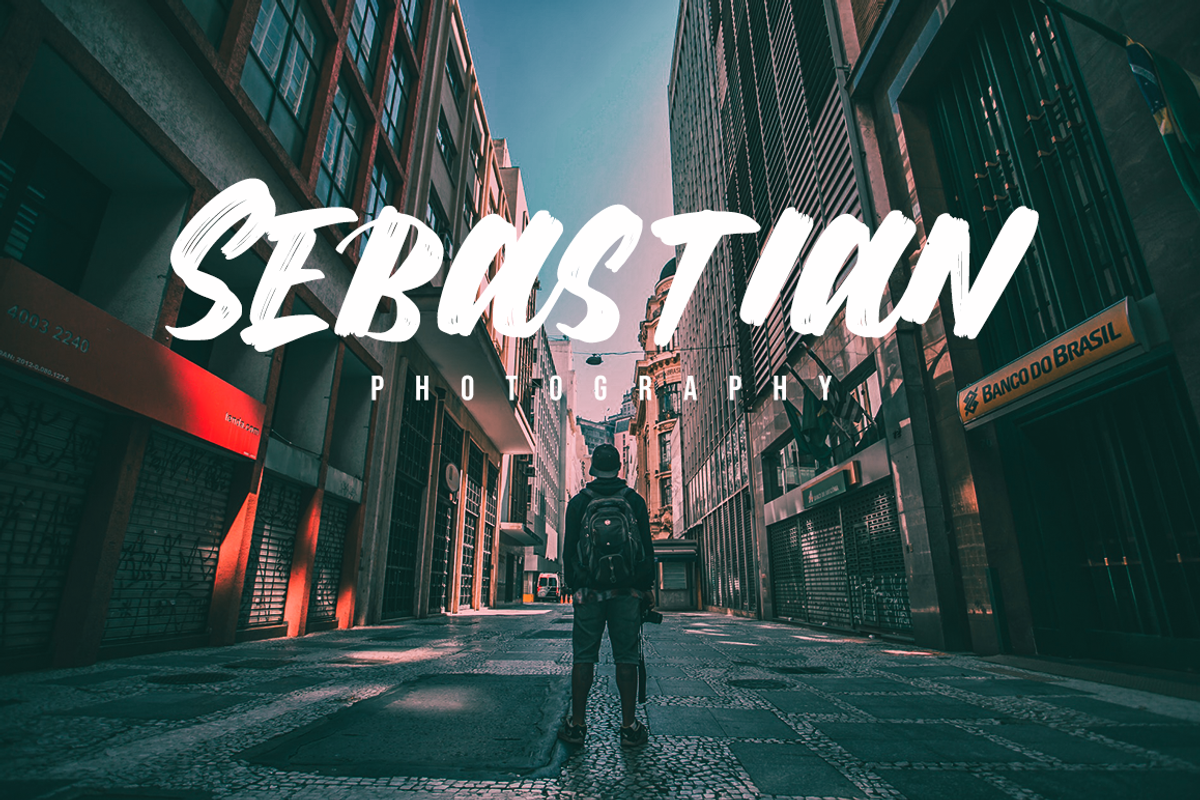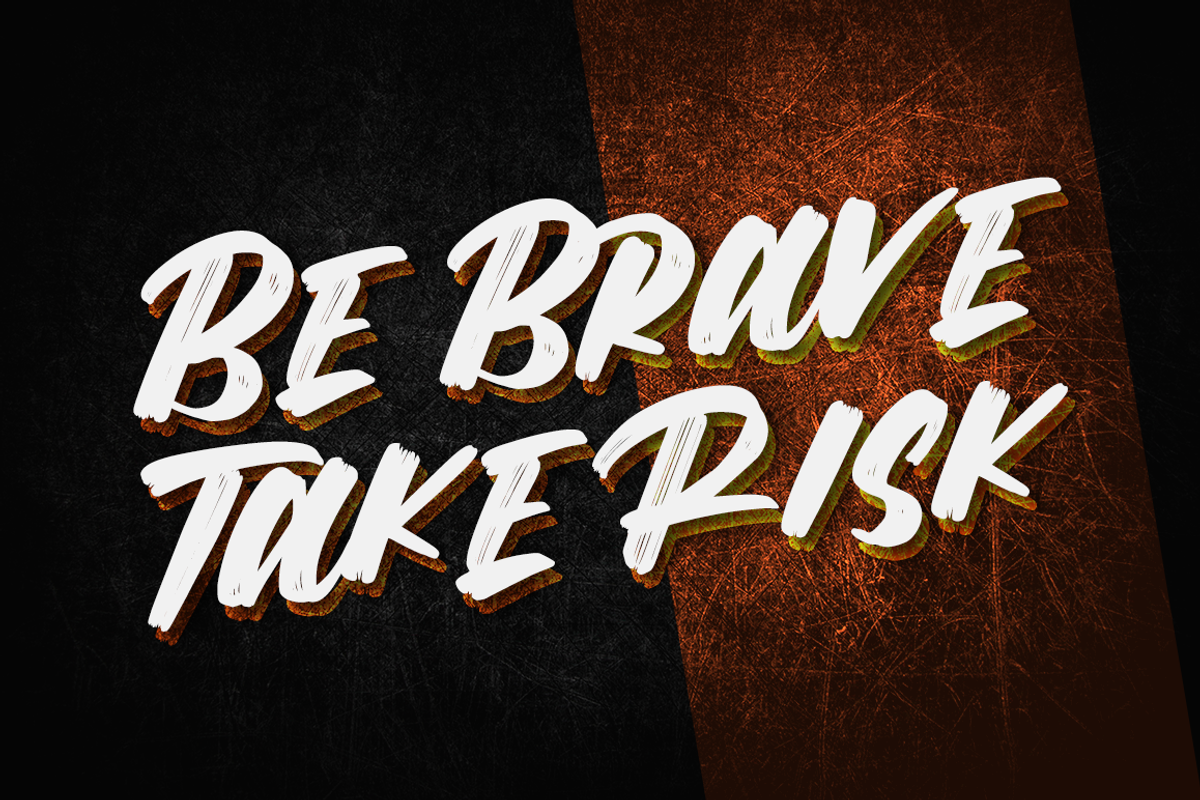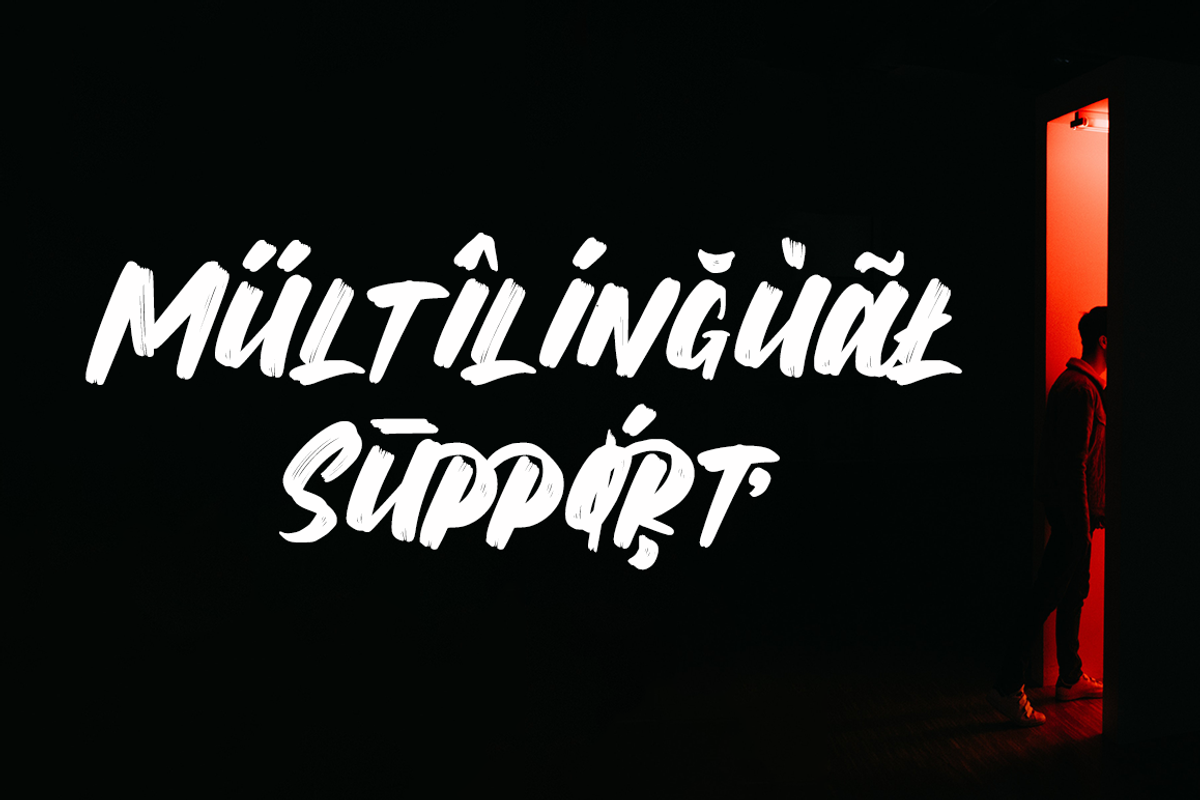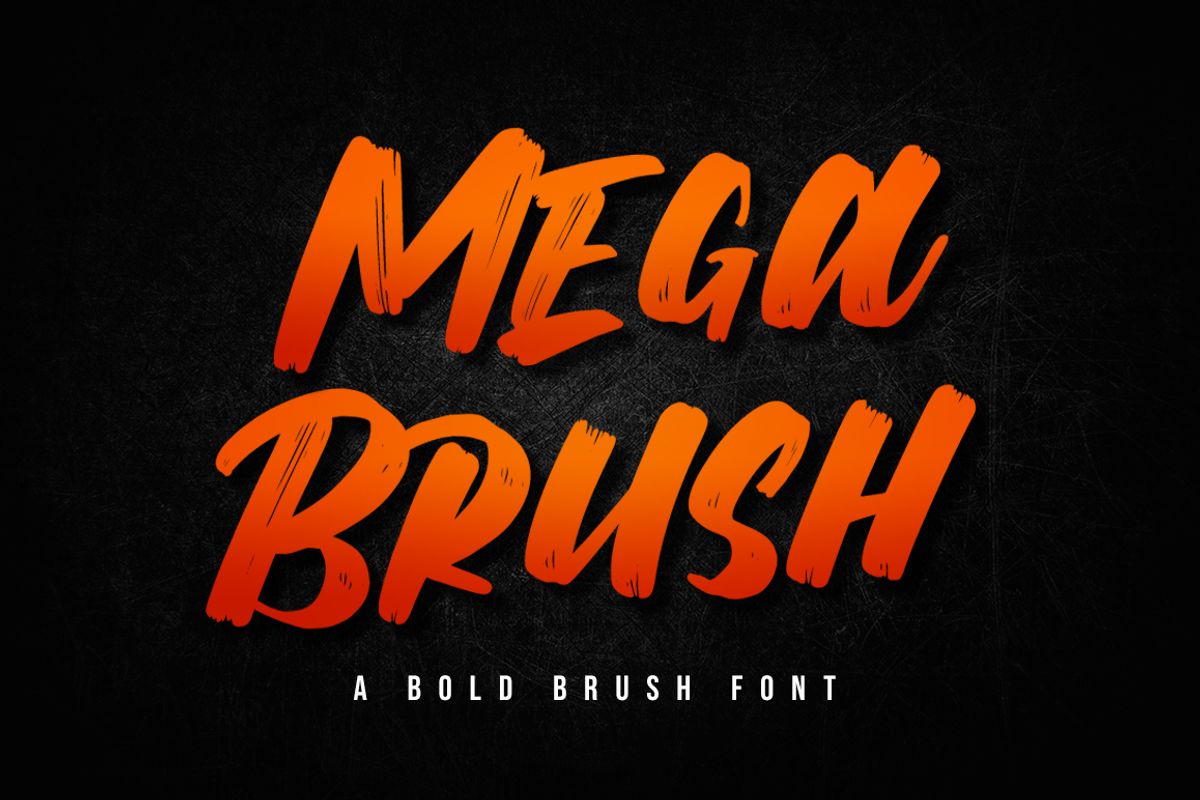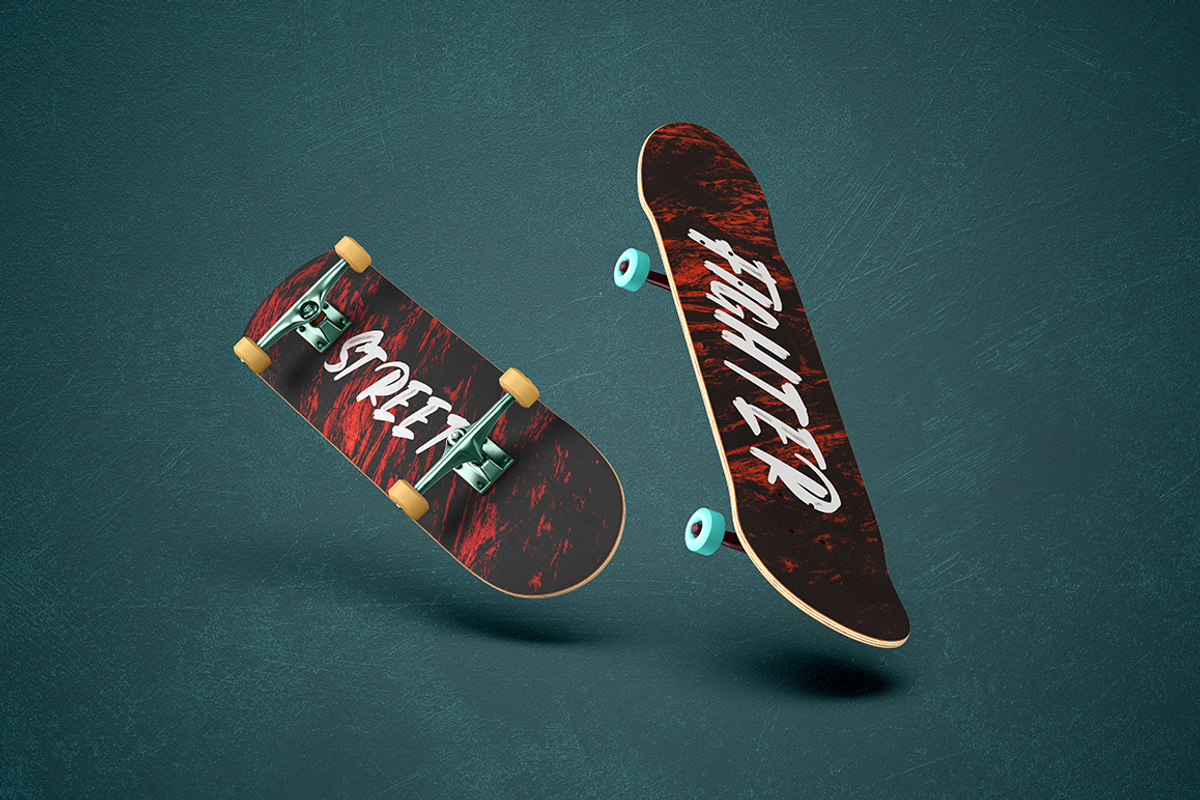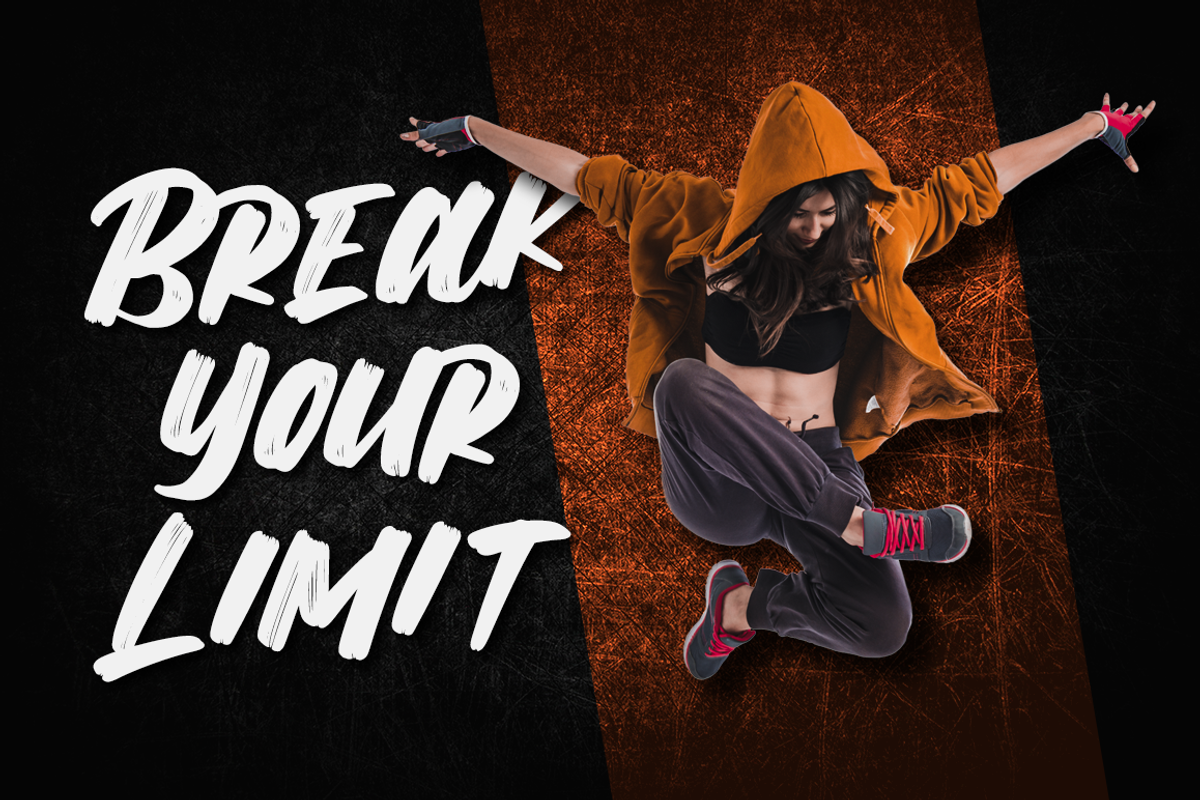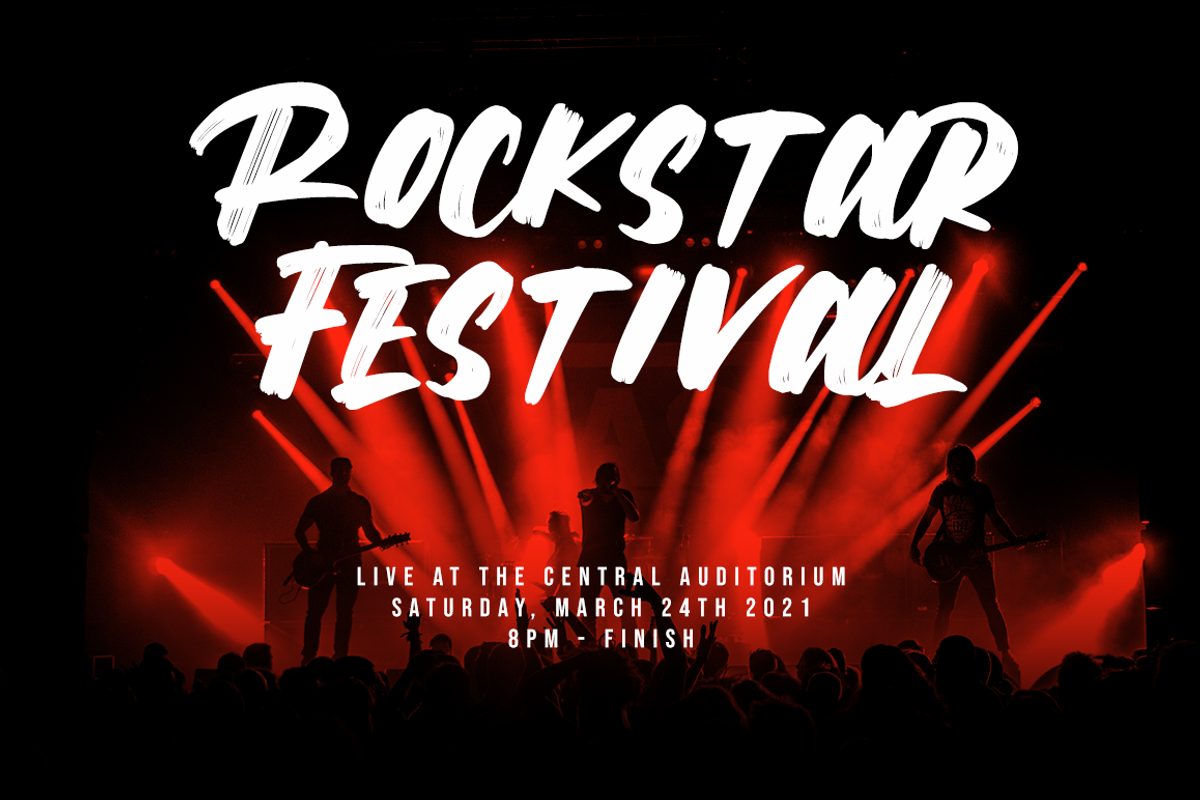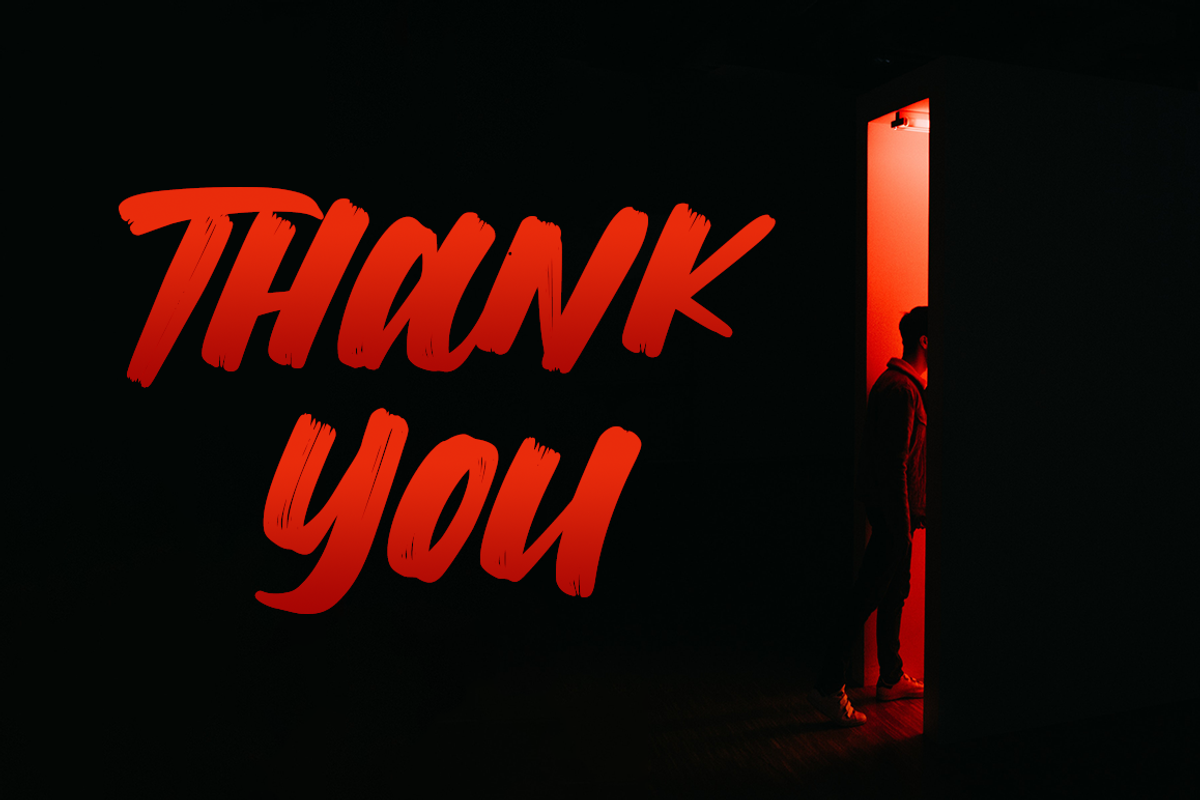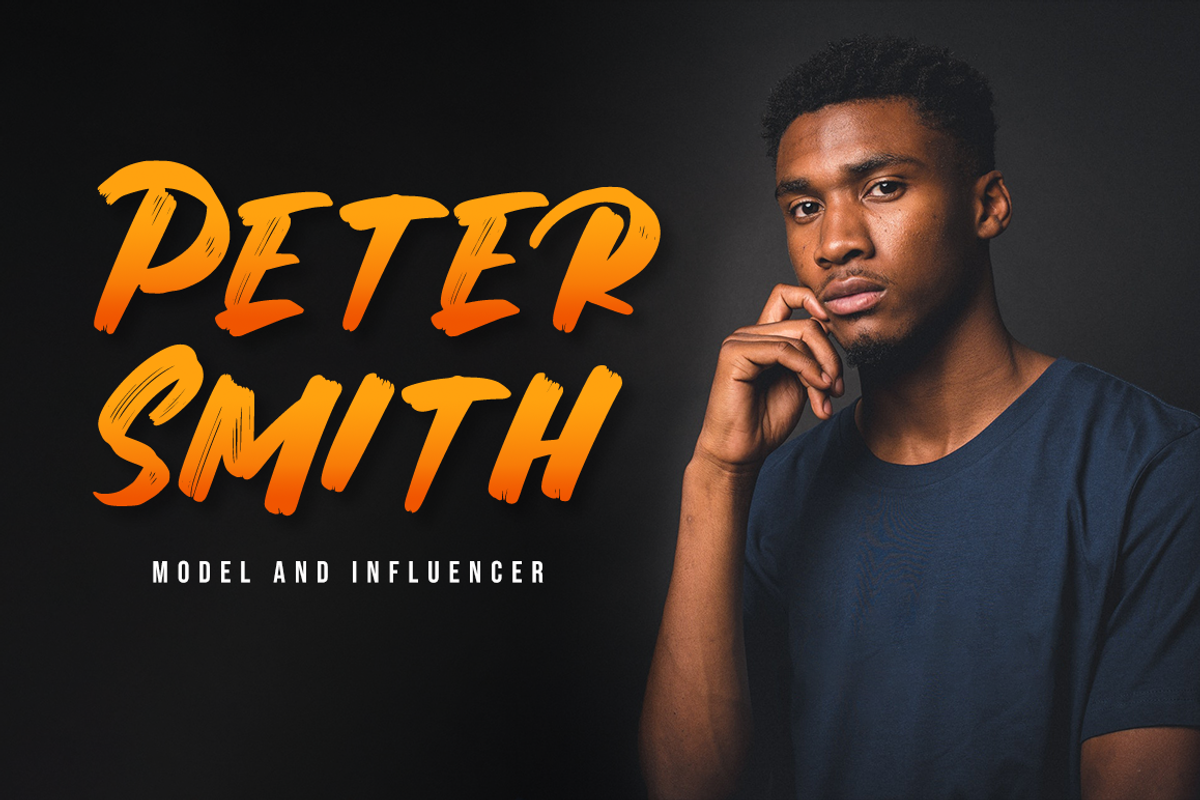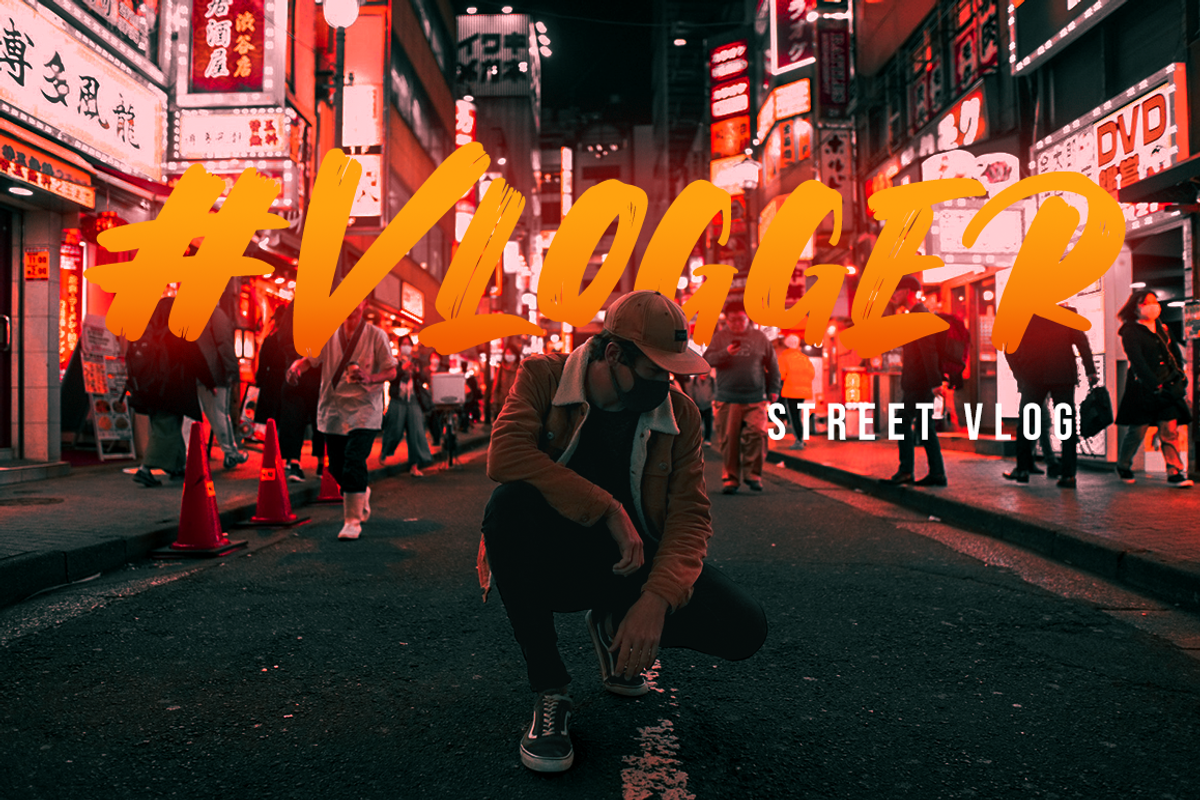
Mega Brush Font
Mega Brush is is a unique and interesting display font. A little bit quirky, this font looks incredibly adept on a wide variety of contexts!